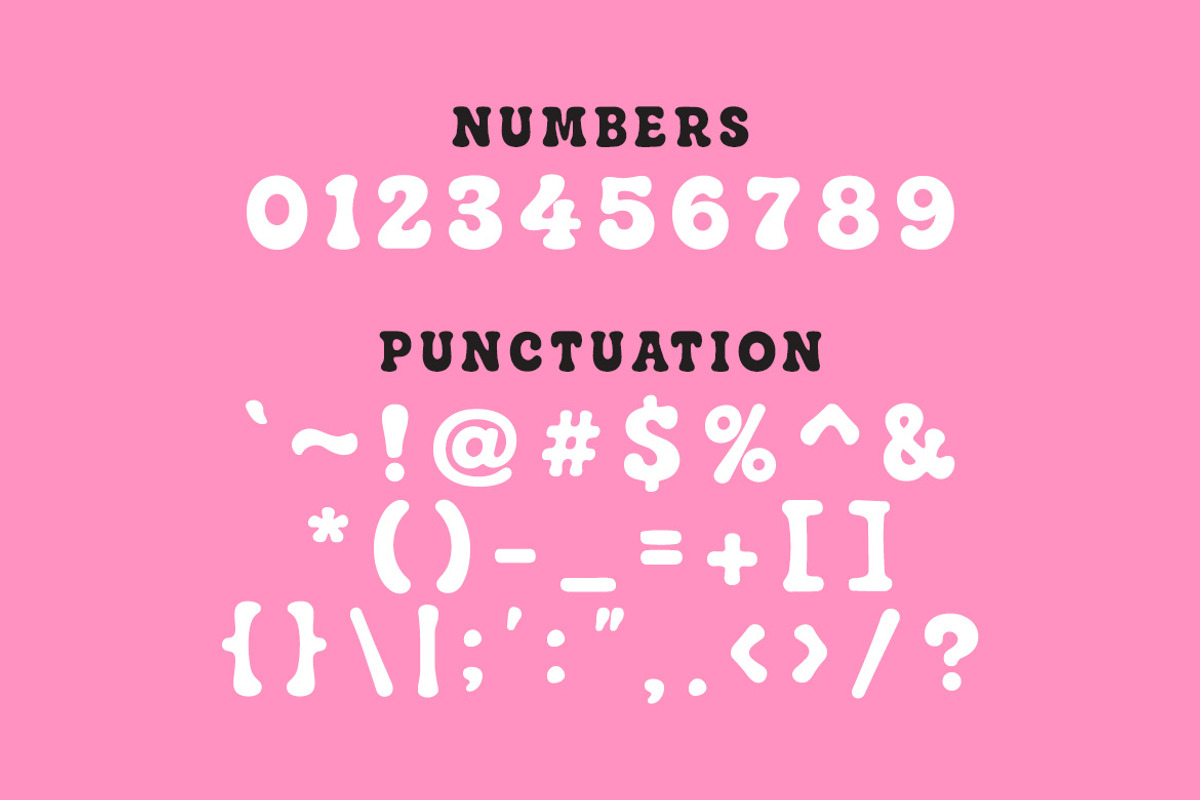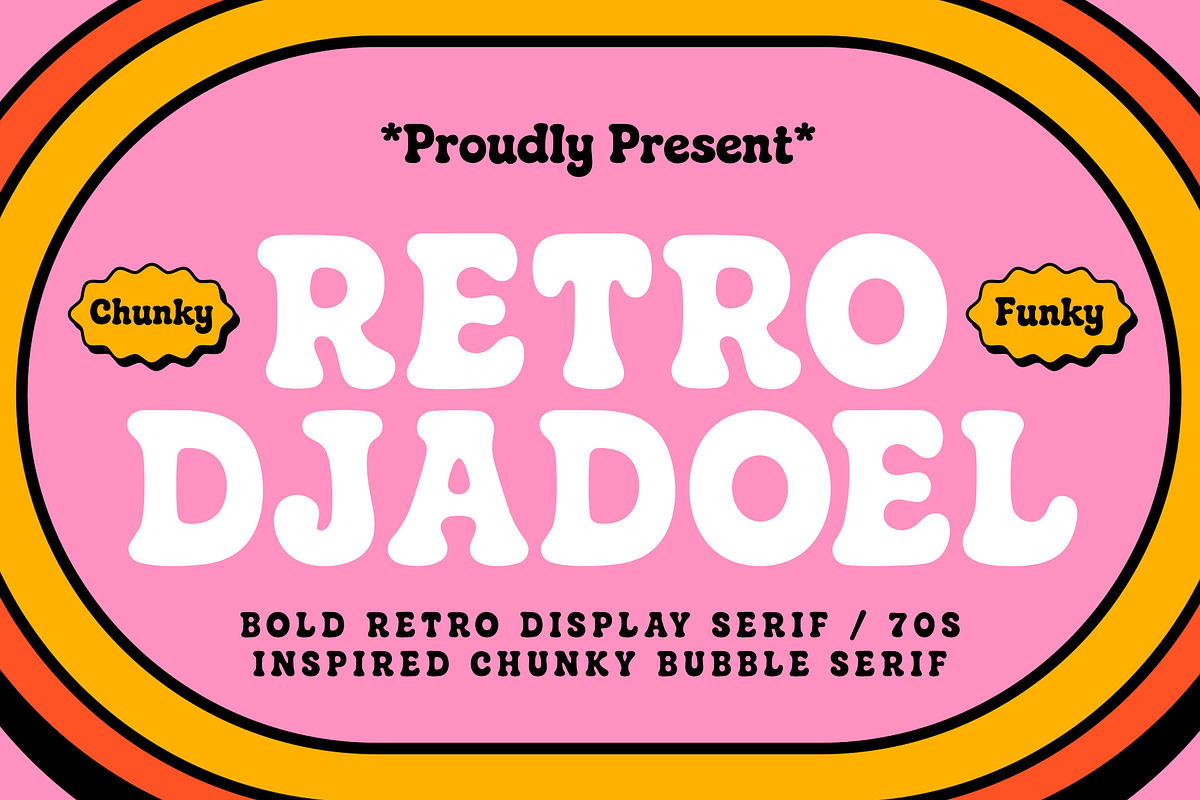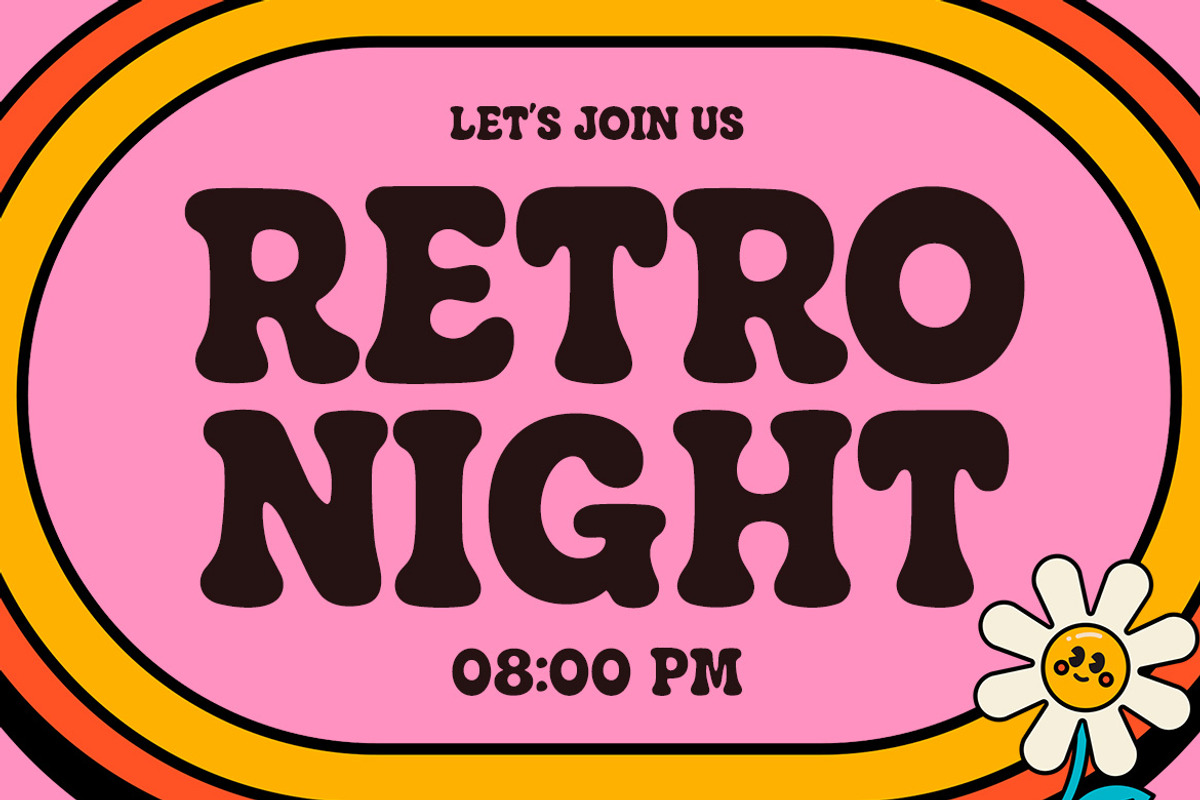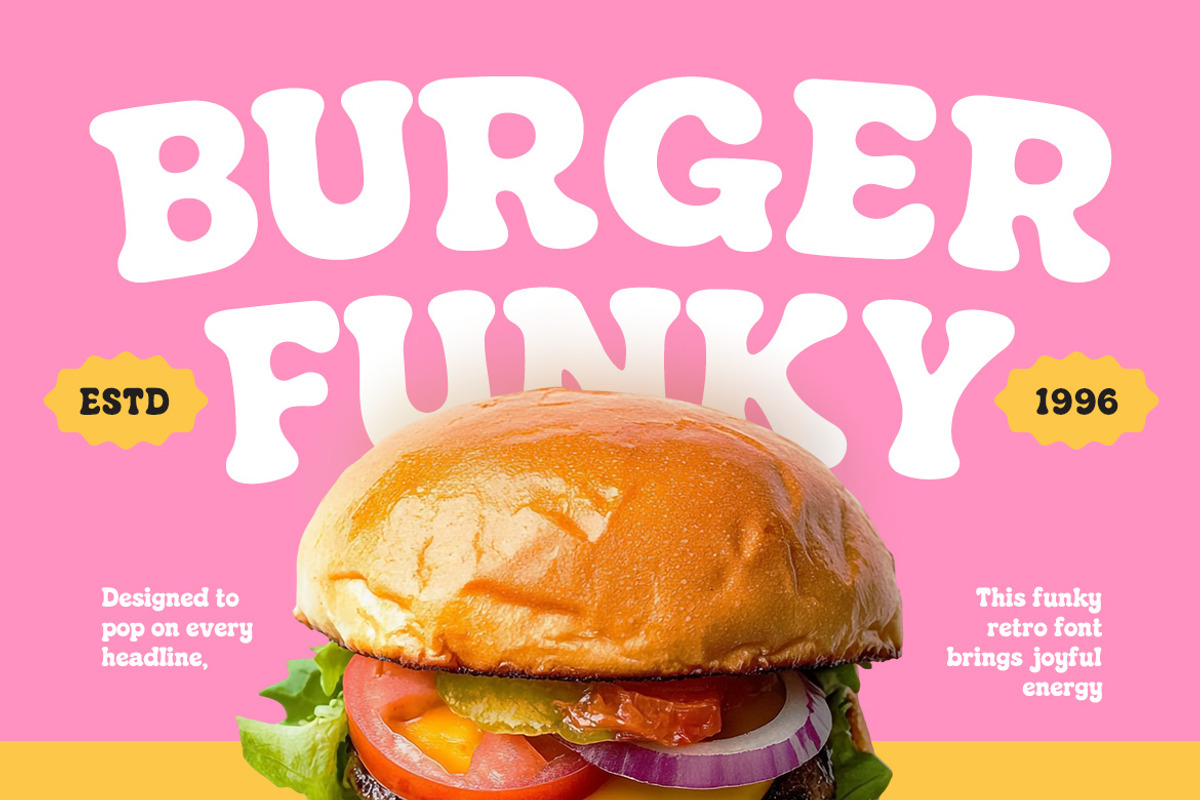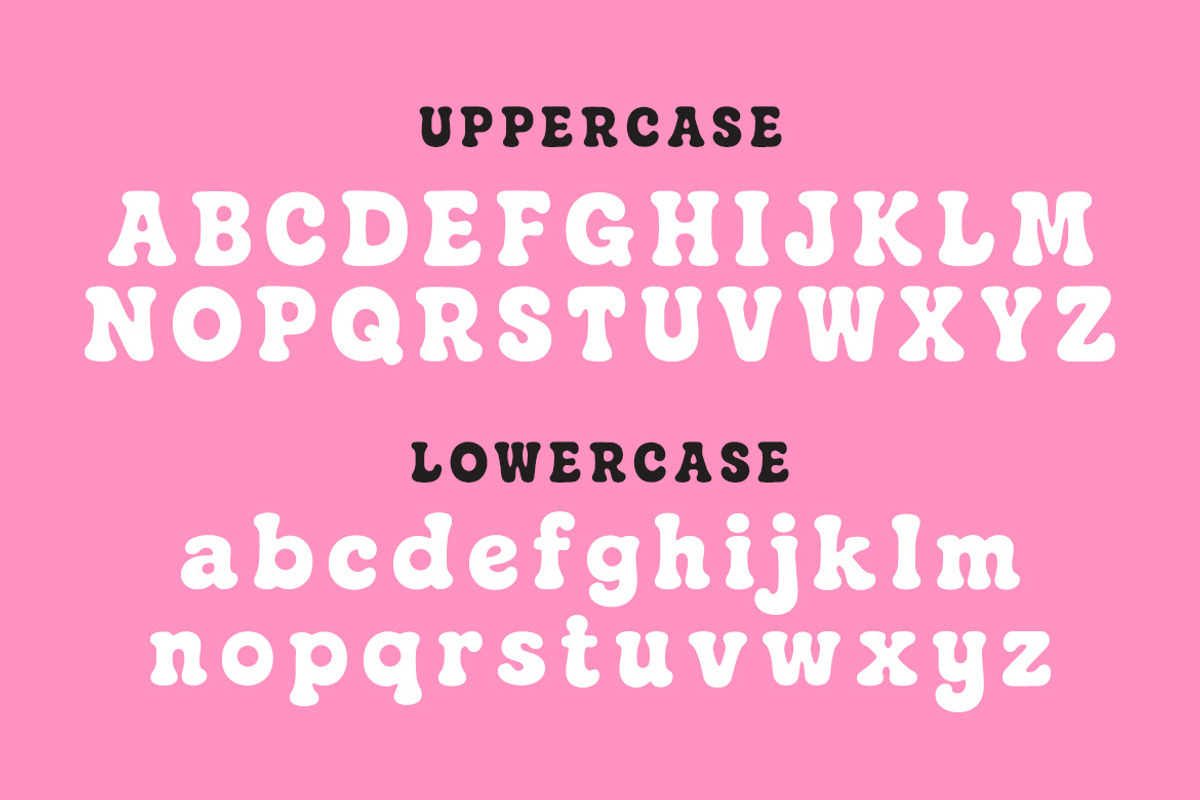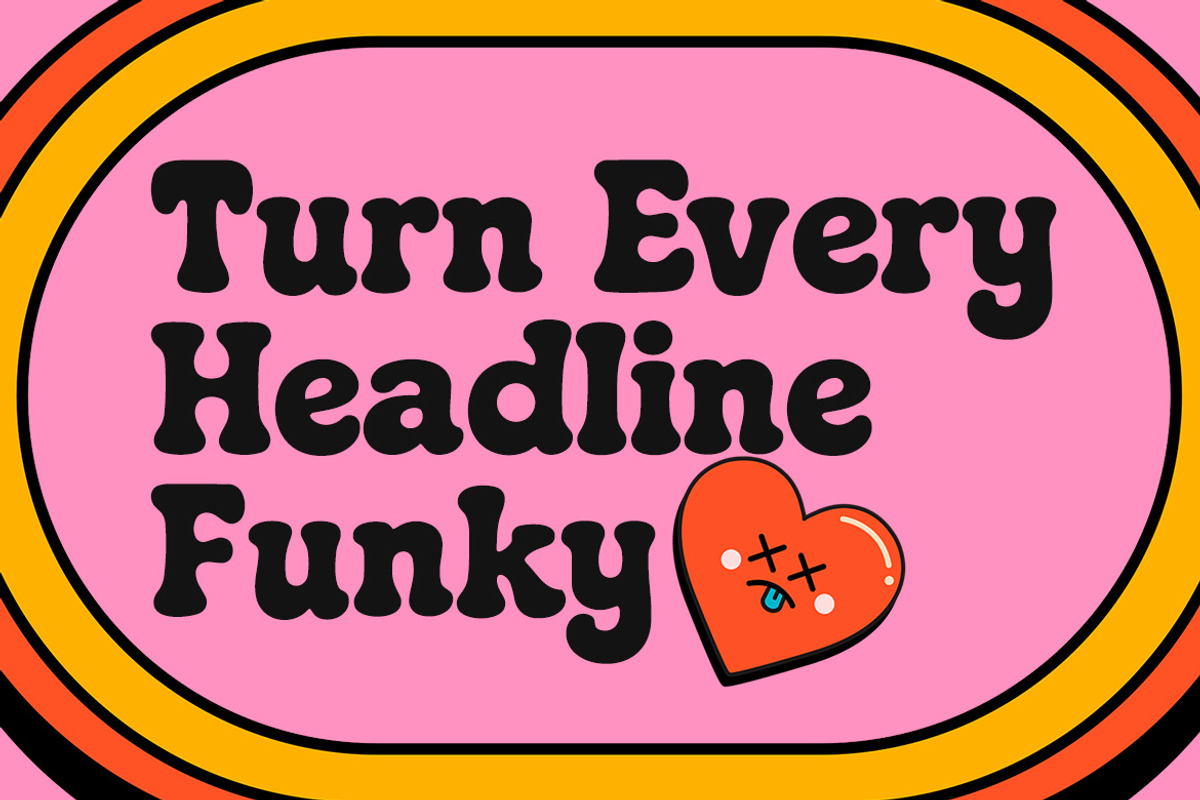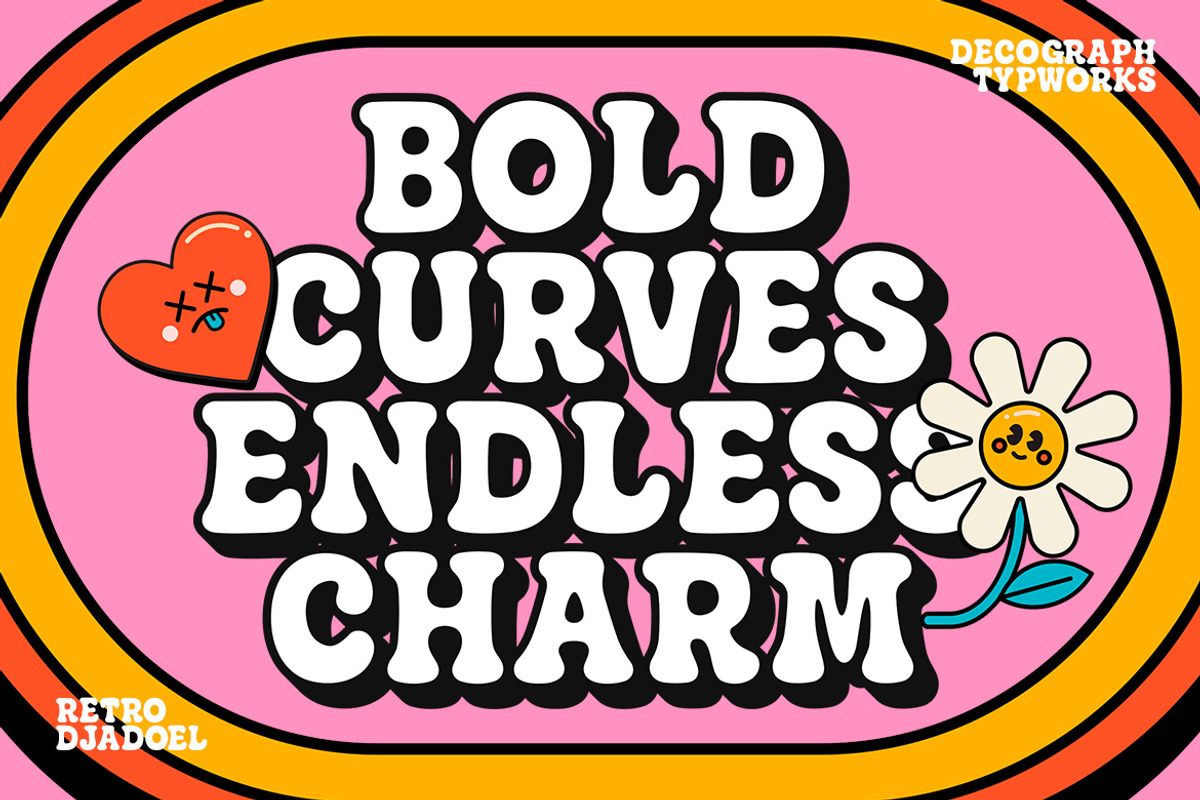
RETRO DJADOEL – Chunky Retro Display
RETRO DJADOEL is a bold and funky retro display serif inspired by the playful charm of 70s bubble typography, featuring chunky curves, soft serifs, and a nostalgic personality that instantly grabs attention. Its thick, rounded forms and groovy proportions create a warm, cheerful vibe perfect for vintage branding, poster designs, packaging, music covers, kids-themed projects, and standout headlines. Designed to bring fun and character into every composition, this typeface blends retro aesthetics with modern usability, making it a versatile choice for creatives who want bold visuals with a timeless throwback feel.
:FEATURES:
- Smooth Kerning